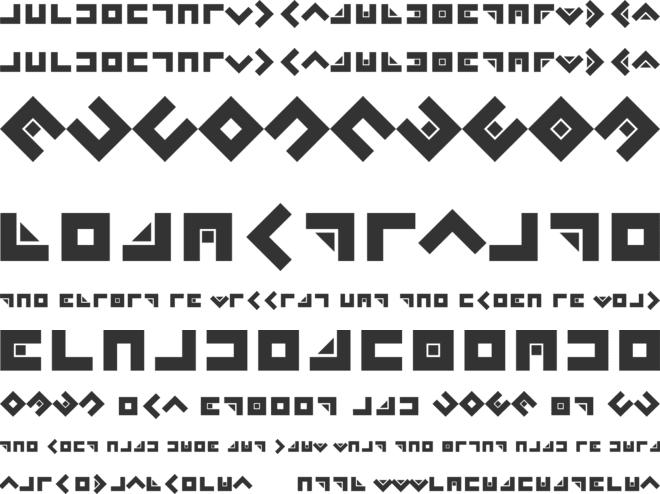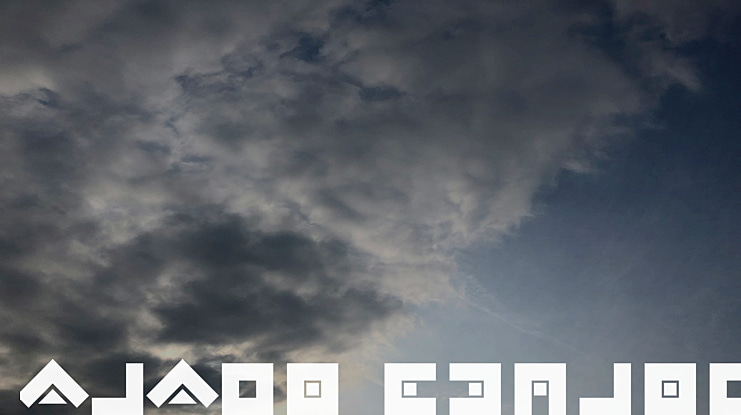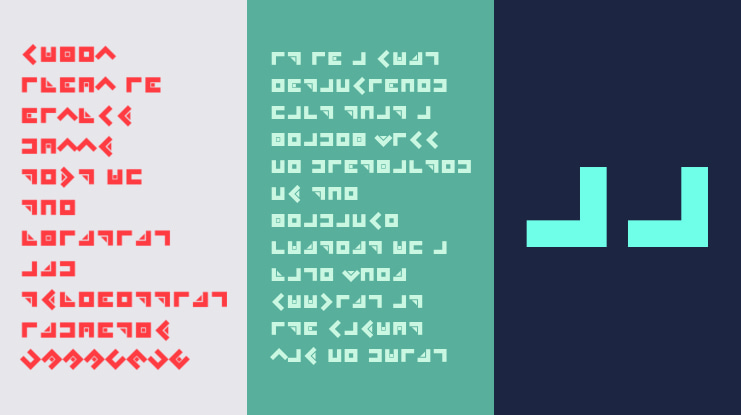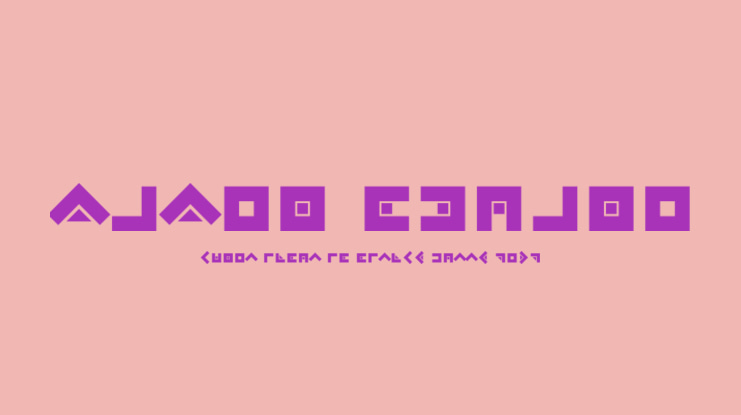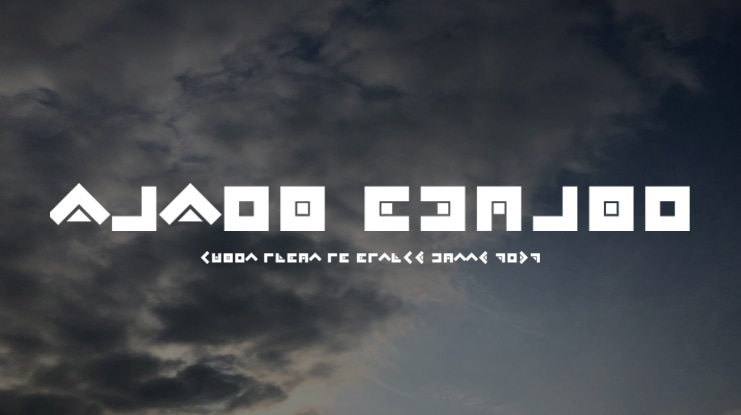
Zazer Square Font
Aleksandr Savenkov
A pigpen geometric font inspired by the pause menu ciphers from the Jenny LeClue video game.
Includes Basic Latin and numbers from the so-called Extended Pigpen.